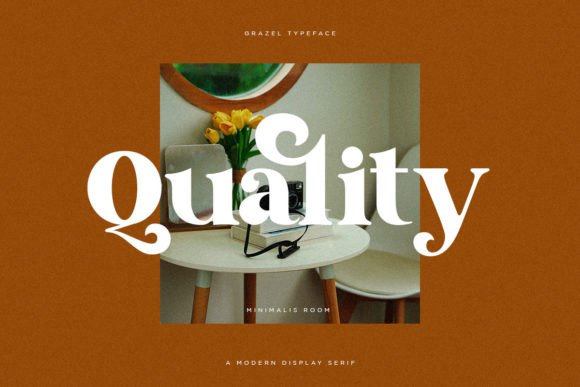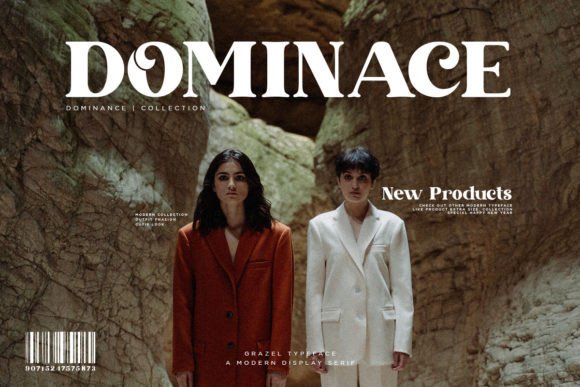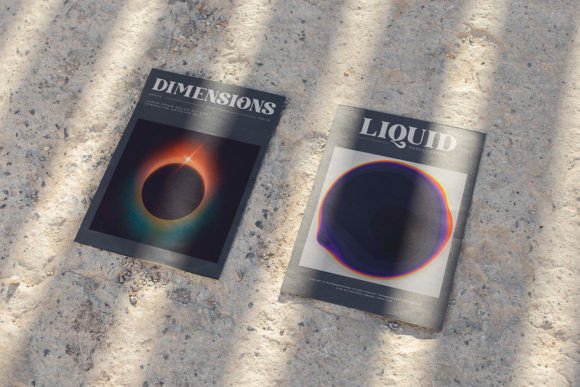
Grazel Font
Grazel is a modern serif font inspired by vintage typography. Stylish and bold, this easy-to-read typeface is perfect for any project! This font is PUA encoded, which means you can access all of the glyphs and swashes with ease!